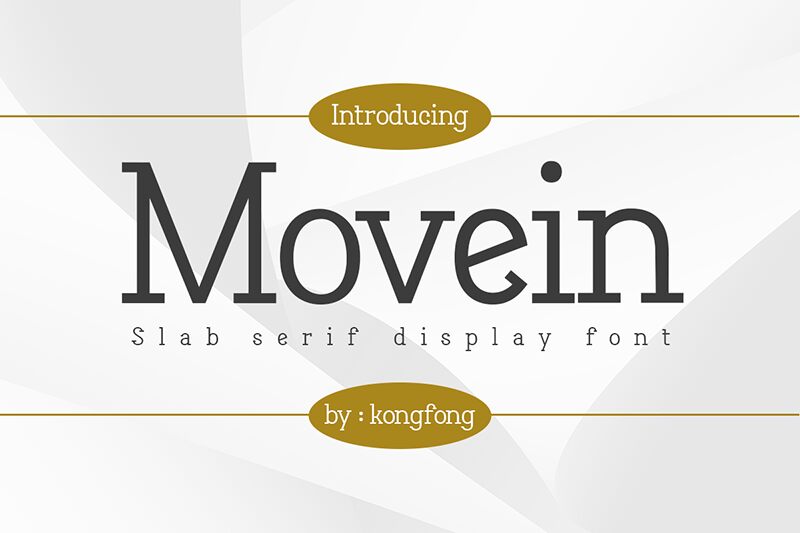
Movein font by Kong Font is a free serif typeface designed with clean lines and a modern touch. This simplistic and professional font offers a robust presence for your prints and digital publications. Each letter of this structured font gives a visual impression reinforced by the lack of contrast between the elements constituting it.
It combines versatility and elegance in an unusual contemporary way for many commercial and non-commercial applications. It works perfectly well in combination or alone as the primary font.
Movein can be used in branding, packaging, or at work for an important presentation, report, or document. Fashion magazines, covers, books, movie posters, and stationery items are some additional suggestions for using the font in question. Start exploring the true potential of this beautiful font by applying it to ad designs and social media pages.